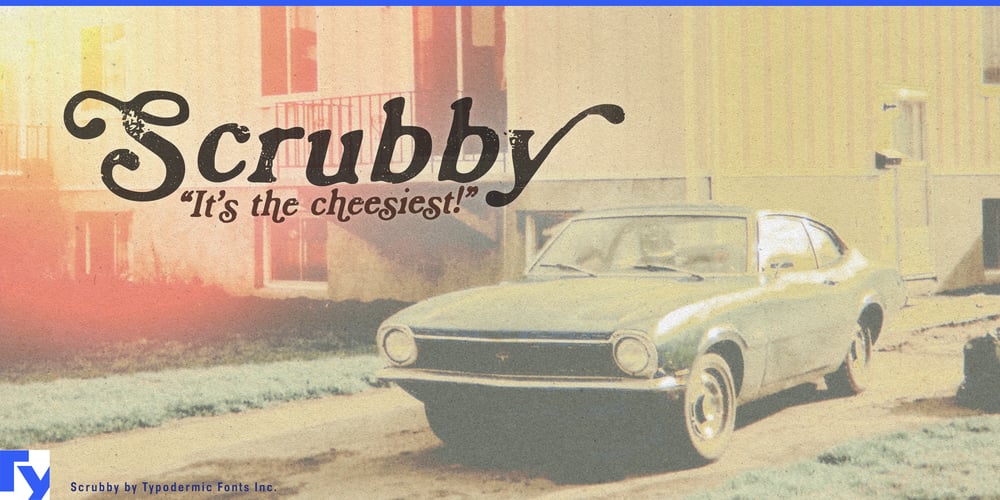
Scrubby
Scrubby font
Scrubby Font Family was designed by Ray Larabie and published by Typodermic. Scrubby contains 1 styles and family package options. Cruise back to the groovy early ’70s with Scrubby, the typeface that’s totally outta sight! This funky fresh font is like a time machine, whisking you away to an era of bell-bottoms, lava lamps, and righteous vibes.Inspired by the legendary Bookman Italic, Scrubby’s got more personality than a soap opera marathon. It’s not just a typeface—it’s a colorful trip through typographic wonderland! With wild swashes and far-out alternate letters, Scrubby brings the flower power to every word you type. But dig this, cats and kittens: Scrubby’s got brains to match its beauty. Thanks to your app’s standard ligatures, those psychedelic swirls and curls appear automagically. Start a word with “A” or end it with lowercase “k”, “h”, “m”, “n”, “r”, “v”, “w”, or “y”, and grove on those fancy tails.Worried about your letters doing the bump? Fear not, cool daddy-o! You’ve got full control over Scrubby’s groovy moves. Just flip the switch on your OpenType swash or stylistic alternate settings, and you’re the master of this typographic universe. Scrubby speaks the language of love—and a whole lot more! It’s fluent in most Latin-based European writing systems, from Afaan Oromo to Zuni. So whether you’re designing a “Keep on Truckin’“ poster or crafting the next great American novel, Scrubby’s got your back.So what are you waiting for, you jive turkey? Give your designs a shot of pure, uncut ’70s style with Scrubby. It’s the typographic equivalent of shaggy carpeting for your eyeballs! Make your words pop, sizzle, and groove. Choose Scrubby, and let the good times roll!